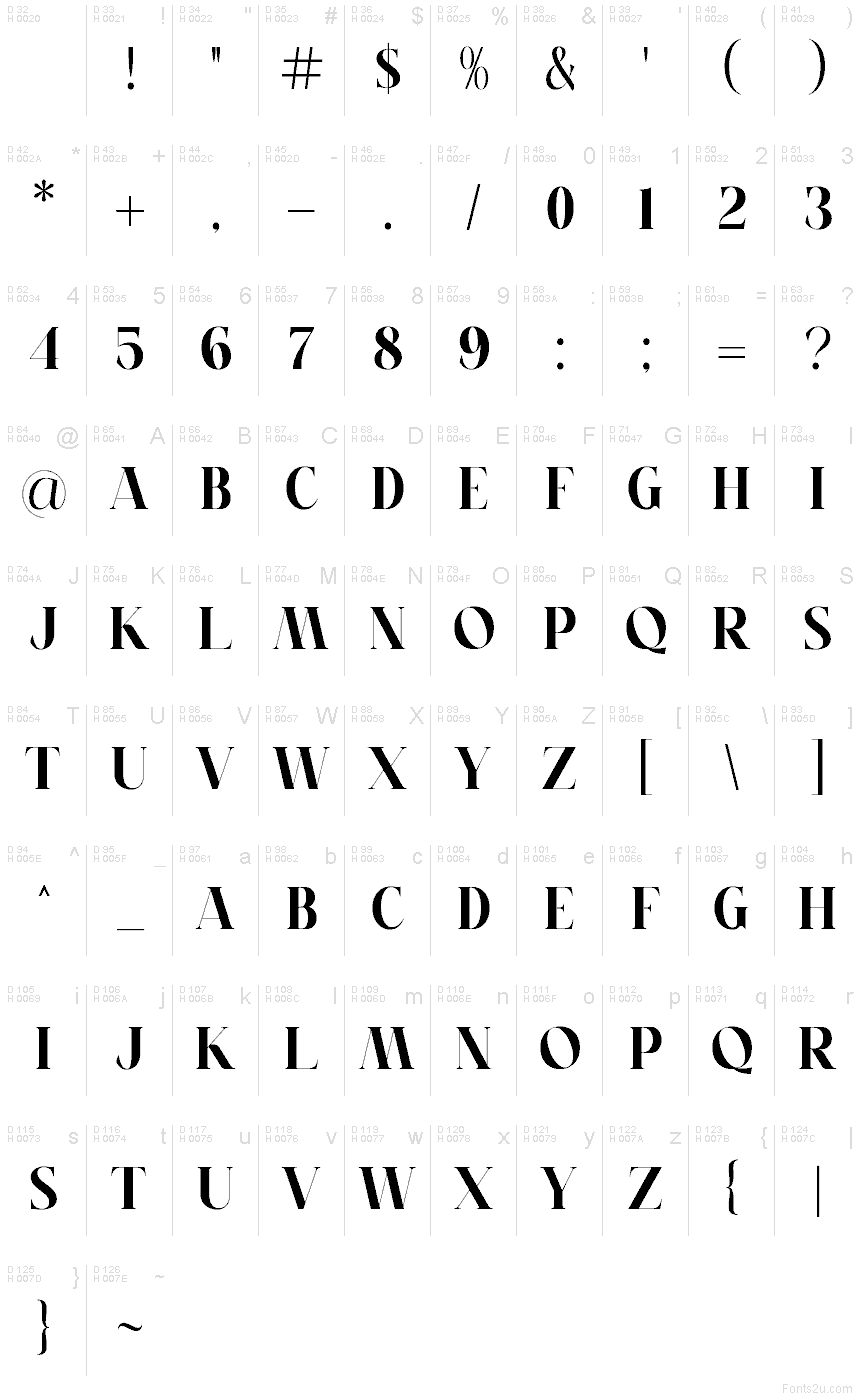
Kizuro
Kizuro font by Graphicxell is a free serif typeface with razor-edged wedges and lush, tapering strokes that feel cut from glossy paper. The letters carry a dramatic swing from thick to fine, creating a chic, editorial rhythm that catches light like lacquer. Sharp joins and generous curves give headlines a sculpted poise while still reading crisply at arm’s length.
Using Kizuro, your titles snap into focus—great for magazine mastheads, luxury branding, perfume packaging, fashion lookbooks, wine labels, and dramatic posters or book covers. The tight spacing adds tension without clutter, so give it room and set it large. Pair this free font with a calm, neutral sans for body copy to keep the spotlight on Kizuro’s refined edges.